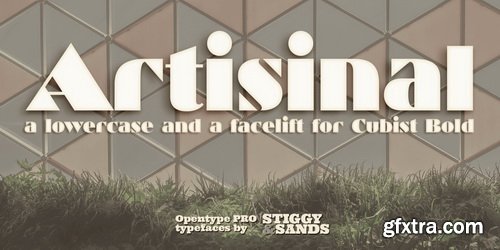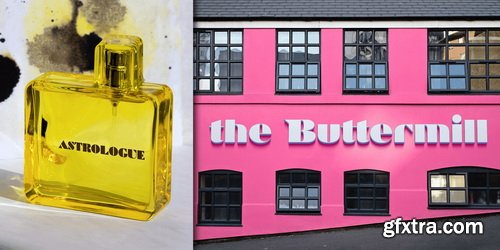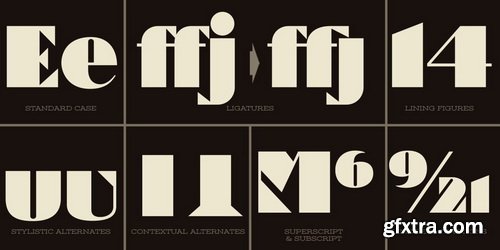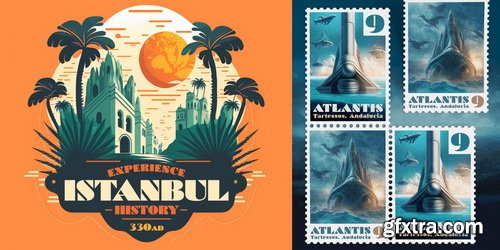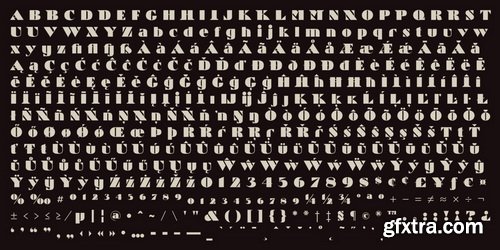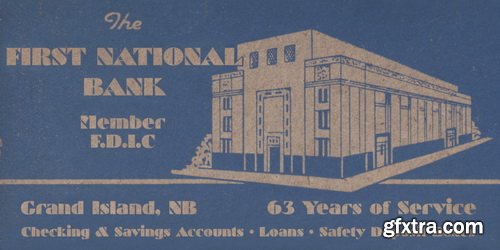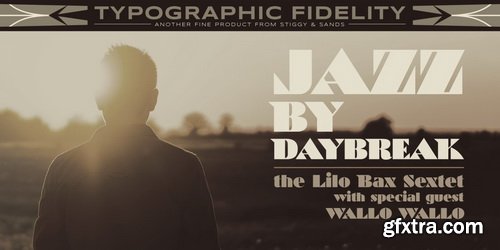
Artisinal, not to be confused with the term artisanal, is our revival of the Art Deco typeface known as Cubist Bold, by John W. Zimmerman for Barnhardt Bros. & Spindler in 1929, breathes new life into a classic. The original metal cast typeface was designed without a lowercase, as well as some wedge serif capitals made for not always perfect pairings. We've created a lowercase that blends well with the original design to give the typeface more usability.